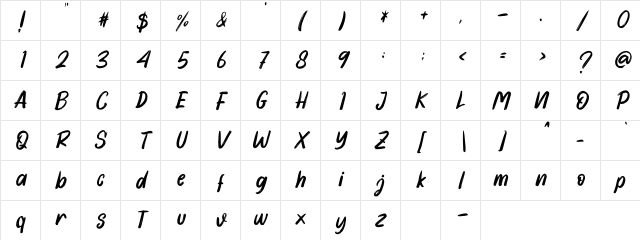
Complete South Austria - Personal Use Italic glyph index. Displaying only characters natively supported by South Austria - Personal Use Italic font.
South Austria - Personal Use is a composed and adaptable typeface that performs quietly and consistently across a wide range of design contexts. The slanted form adds forward momentum and visual energy.